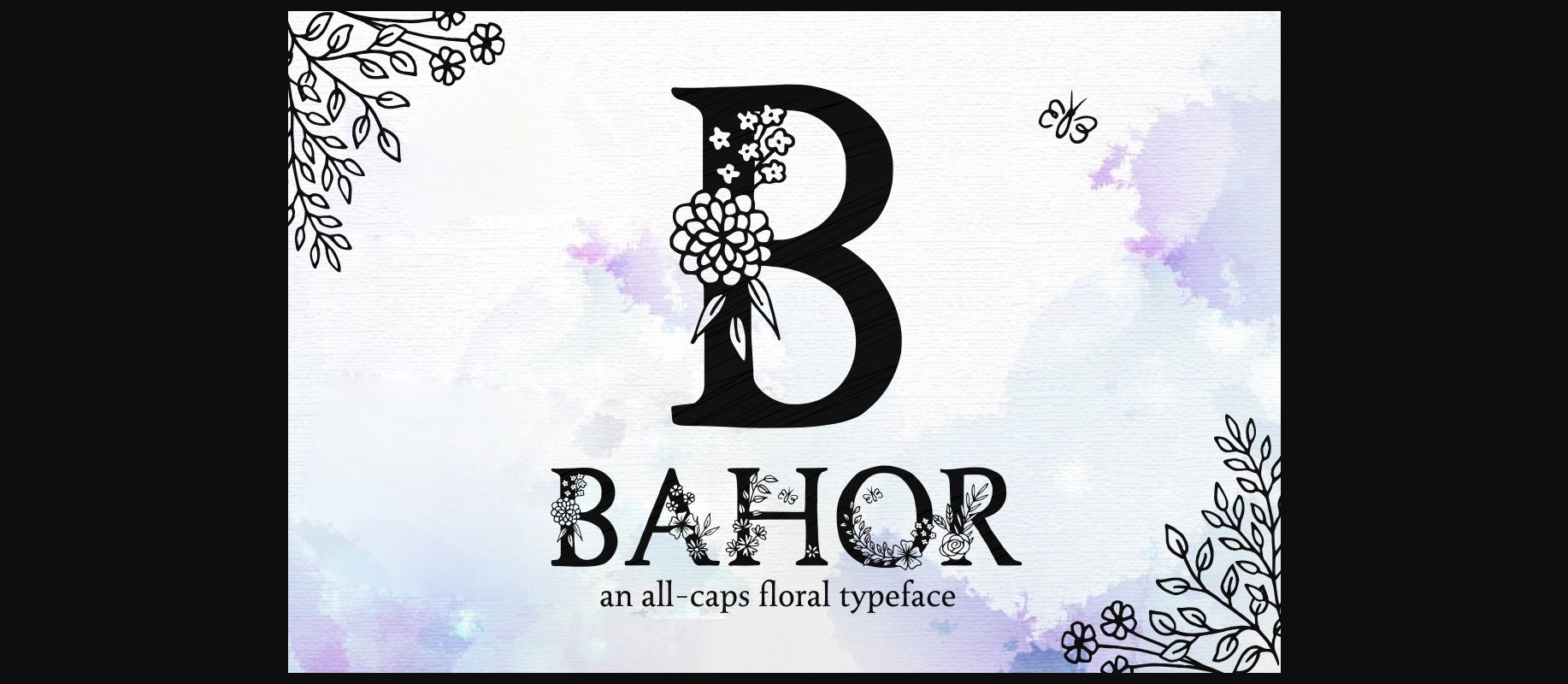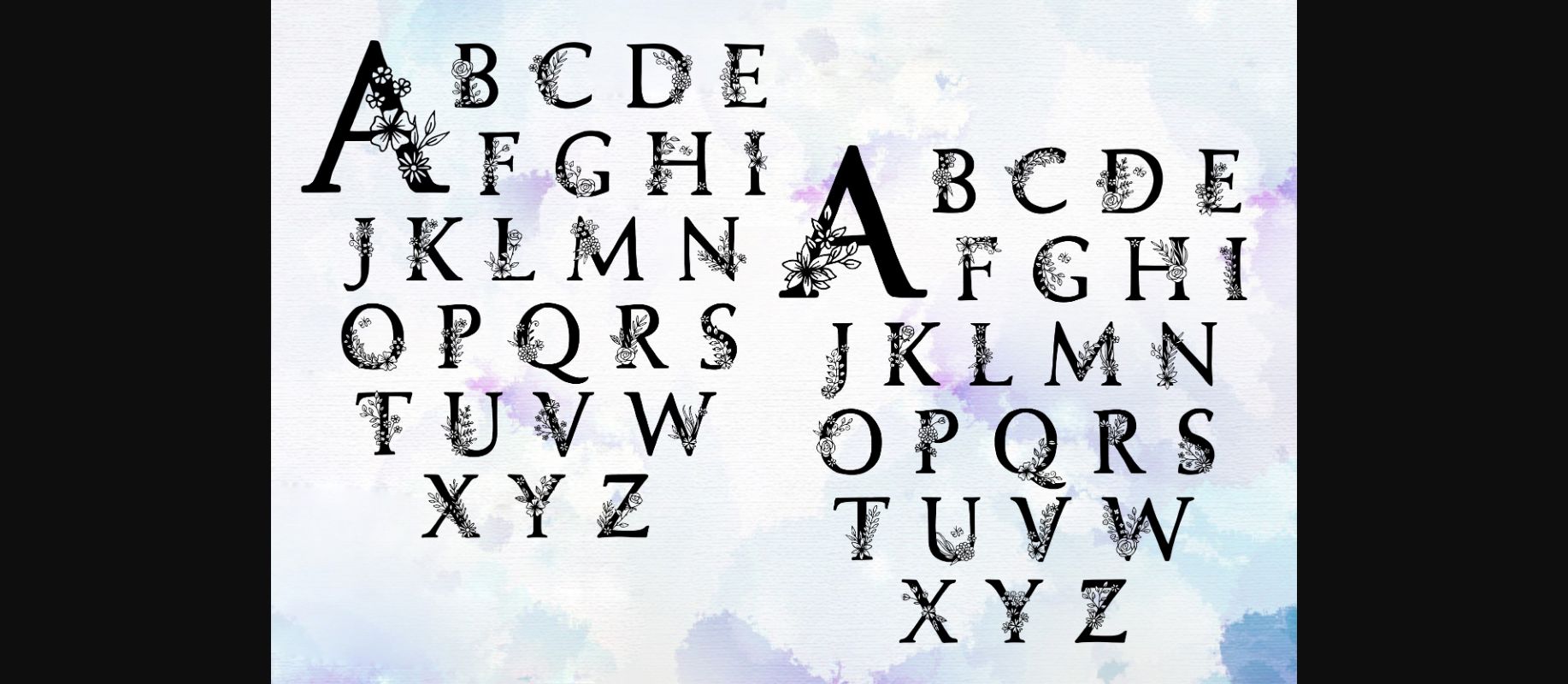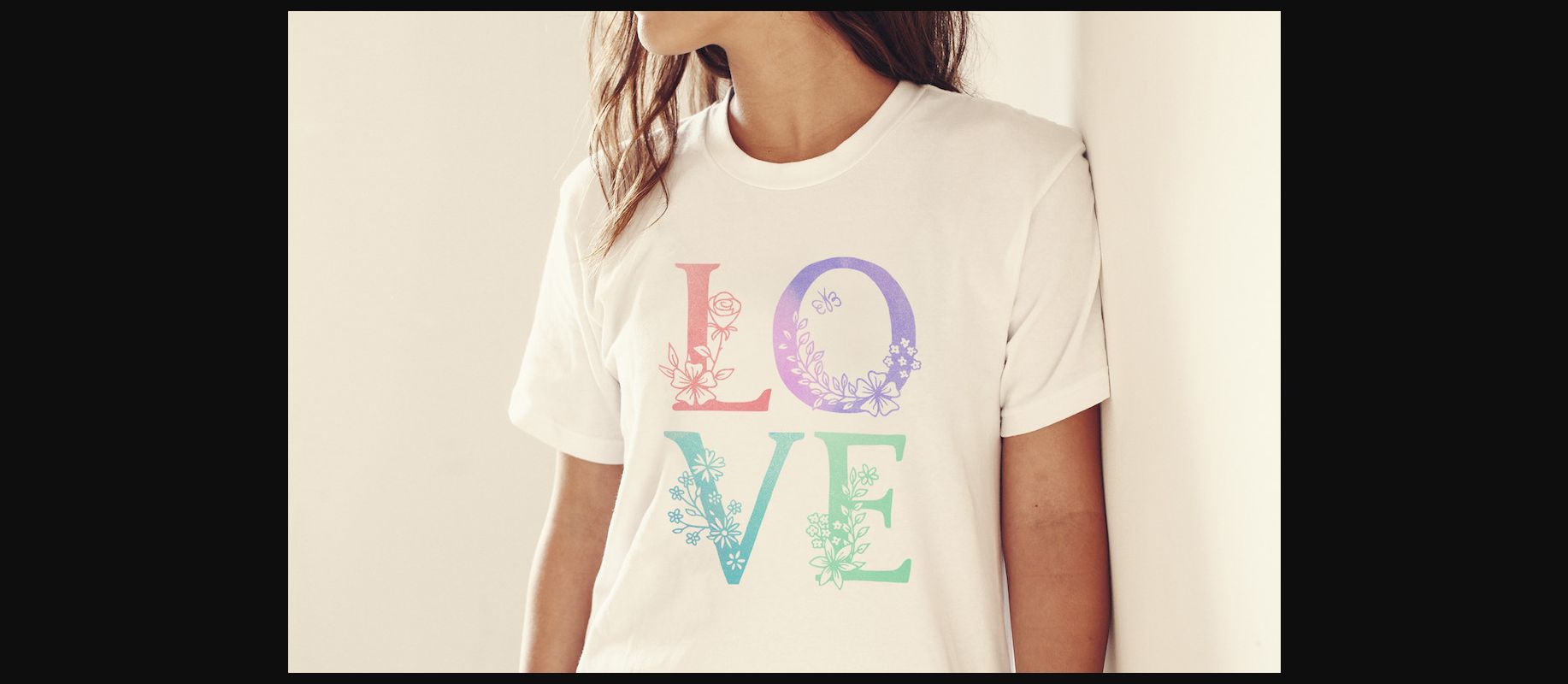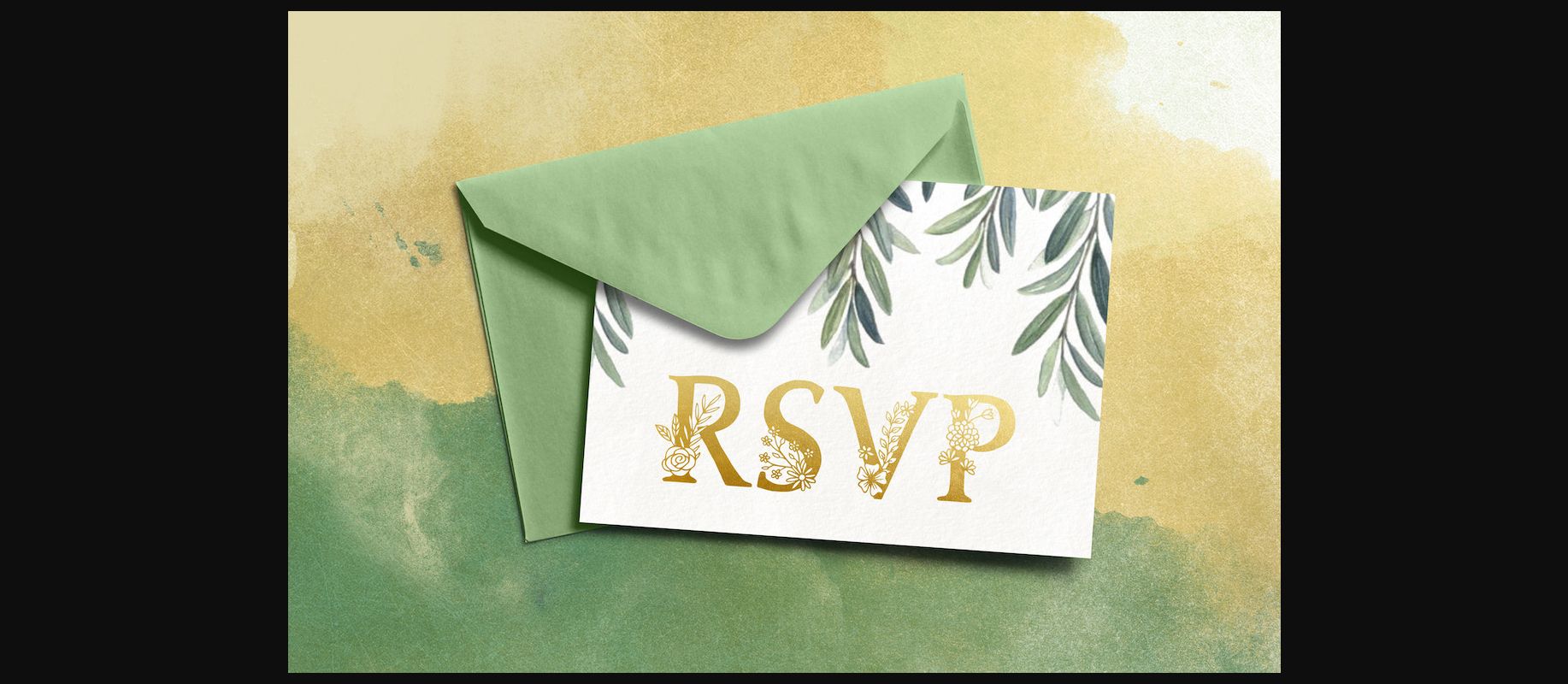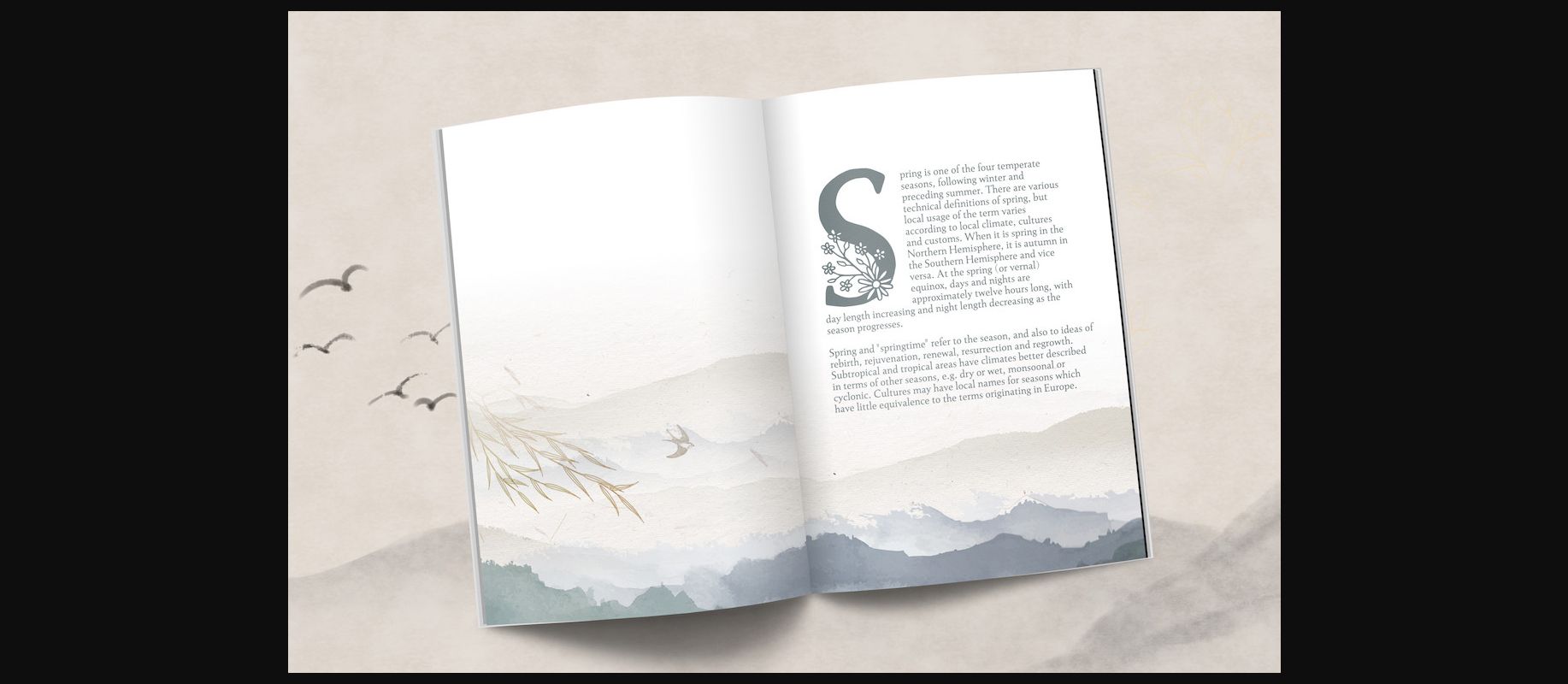
HomeDecorative FontsBahor Font Decorative Fonts Bahor Font FacebookTwitterPinterestWhatsApp 1 of 7 ... Bahor Font Poster 2... Bahor Font Poster 3... Bahor Font Poster 4... Bahor Font Poster 5... Bahor Font Poster 6... Bahor Font Poster 7... About Bahor Font Bahor is a gorgeous looking decorative font. Add it confidently to your favorite creations and let yourself be amazed by the outcome generated. DOWNLOAD NOW 136 0 People also explored Cucumber Font Kalko Font Monocle Just Sunday Font Just Hello Font Zillion Font Apple Caramel Font Yummy Foodies Font Misgaretha Font Anishan Font Climber Font Monogram Crasotca Font TagsBahorBahor Font Previous articleOlive Stary FontNext articleTimber Wolf Font LEAVE A REPLY Cancel reply Comment: Please enter your comment! Name:* Please enter your name here Email:* You have entered an incorrect email address! Please enter your email address here Website: Save my name, email, and website in this browser for the next time I comment. Unlock Endless Creativity with the FREE September Clipart Huge Bundle (Valued at $700!) Personal Use Free Bruttney Personal Use Free Read more Blue Highway Personal Use Free Read more Vilsuve Personal Use Free Read more Simple Personal Use Free Read more BLOG Transform Your Website: Elevate Your Typography with 7 Best Web Font Generators Are you ready to transform your website's typography from ordinary to extraordinary? Great! Today, we're diving into the world of web font generators, which... To increase your work productivity, choose the most readable fonts. Exploring Font Trends Free Fonts Risk: Why Free Fonts Can Be Dangerous for Designers